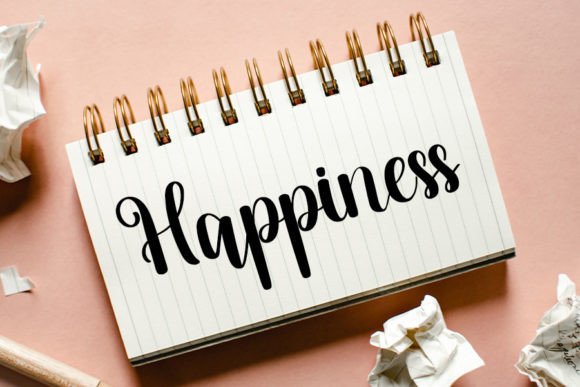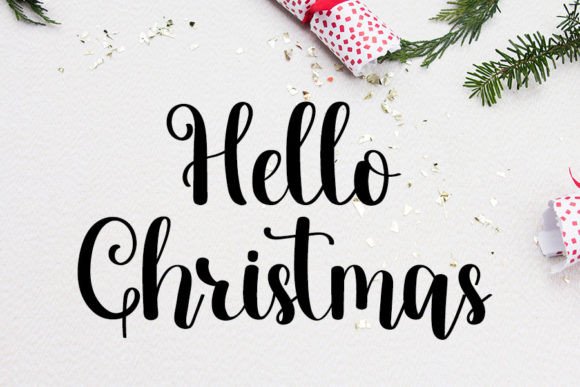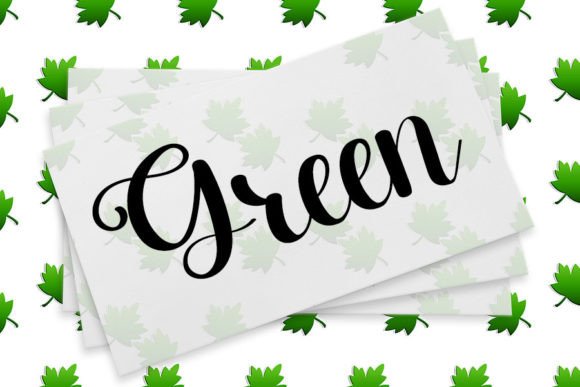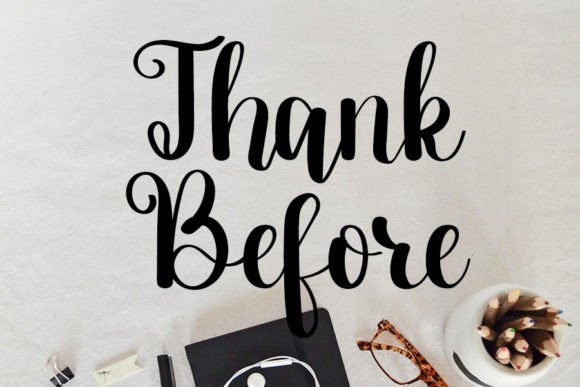
The Perfect Script for Your Next Big Project
Have you ever been brainstorming a new design project and suddenly, a burst of creativity hits you? The ideas start flowing, and before you know it, you’re envisioning the perfect font to bring your vision to life. For many designers, this moment is the spark that sets their creativity ablaze. For those who have been searching for the perfect script to elevate their designs, we’re excited to introduce you to Dreams Font.
This trendy handwritten font is inspired by timeless classic calligraphy, offering a contemporary atmosphere and impeccable form that’s sure to add elegance and class to any design project. Whether you’re a seasoned pro or just starting out, Dreams Font is a valuable tool in your design arsenal, allowing you to create stunning, one-of-a-kind designs that truly stand out from the crowd.
Dreams Font Key Features
- Unique Characteristics: The font features a distinctive, dreamlike quality, with flowing lines and subtle texture, evoking a sense of whimsy and imagination.
Dreams Font Review
I’ve had the chance to work with Dreams Font on a few projects, and I must say it’s a mixed bag. Here are my thoughts.
- ✨ Beautiful, elegant script style that adds a touch of sophistication to any design
- ✨ Great for creative, whimsical, or romantic projects, like invitations, posters, or wedding designs
- ✨ Supports a wide range of languages, making it a great option for global designs
- ⚠️ Limited font sizes and styles, which can make it less versatile for complex designs
- ⚠️ Not ideal for technical or informative projects, as the script style can be hard to read in certain contexts
- ⚠️ Some users may find the font too ornate or distracting, which can be a turn-off
While Dreams Font has its strengths, I wouldn’t recommend it for every project. It’s best suited for creative, low-key designs where the script style can shine. If you’re looking for a more versatile font, you may want to consider other options. But for the right project, Dreams Font can be a great choice.
Dreams Font is ideal for creative and artistic projects, such as:
– Infographics
– Brochures and flyers
– Branding materials
For best results, use Dreams Font in conjunction with other creative elements, such as images, colors, and shapes.
Alternatives to “Dreams Font” for Designers
Oswald is a sans-serif font that is highly legible and versatile. It is suitable for use in titles, headings, and body text. Oswald has a more geometric and modern feel compared to Dreams Font, making it ideal for contemporary designs.
Comparison to Dreams Font: Oswald has a more condensed and modern feel, whereas Dreams Font is more elegant and sophisticated. Oswald is a better choice for designs that require a strong, geometric aesthetic.
Playfair Display is an elegant and luxurious serif font that is perfect for use in titles, headings, and body text. It is ideal for designs that require a high level of sophistication and elegance.